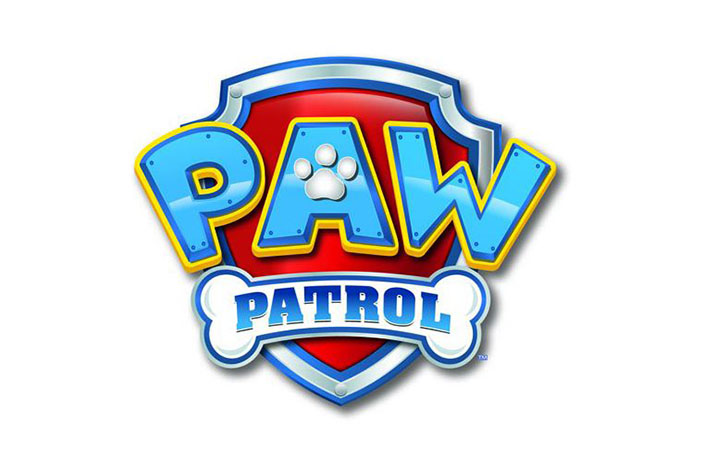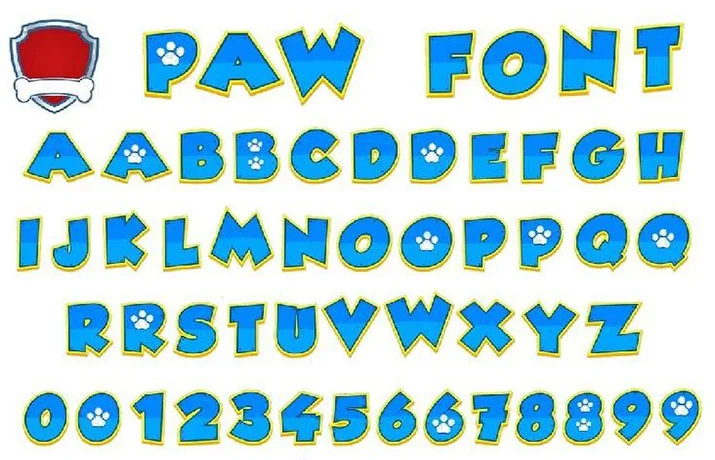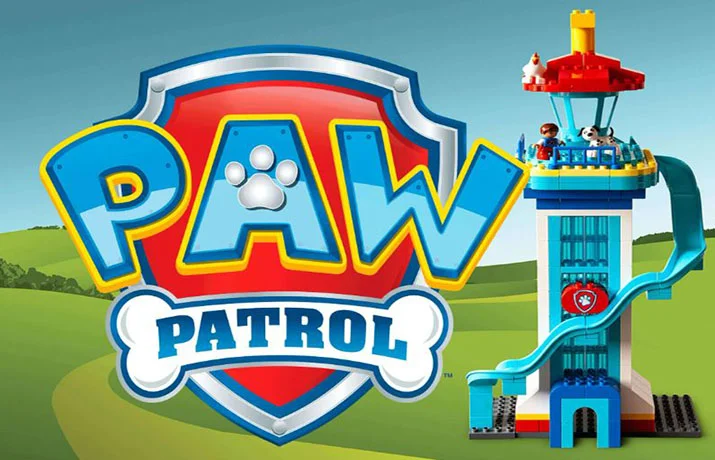
Paw Patrol Font! PAW Patrol is a popular Canadian animated television series created by Keith Chapman.
The show premiered on Nickelodeon in the United States on August 12, 2013, and on TVOKids in Canada on September 2, 2013.
The show follows the adventures of a young boy named Ryder and a team of six heroic puppies who work together to protect their community.
PAW Patrol has gained a wide following among young children and has spawned a range of merchandise and spin-off products.
The font features bold, colorful lettering that is reminiscent of the show’s playful and adventurous tone.
It is a popular choice for parents and children alike who are looking to incorporate the fun and excitement of the show into their design projects.
With its unique texture, you can easily create movie posters, display titles, banner ads, game titles, posters, titles, banners, flyers, game development, unique emblems, social media posters, printing on cards, comic covers, cartoon posters, and many other places also.
Whether you are creating a birthday invitation or a personalized gift for a young fan of the show, the Paw Patrol Font is a great way to add a touch of fun and excitement to your project.